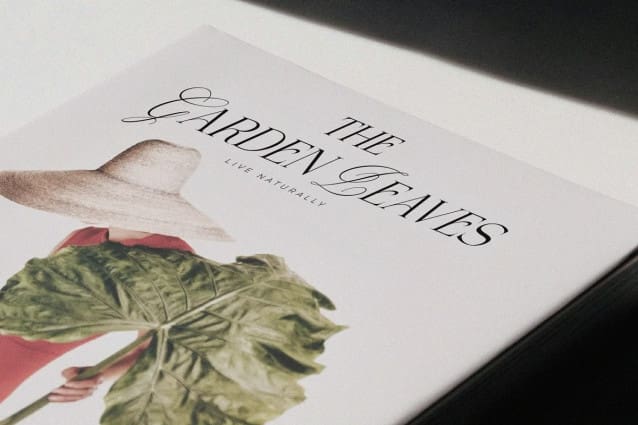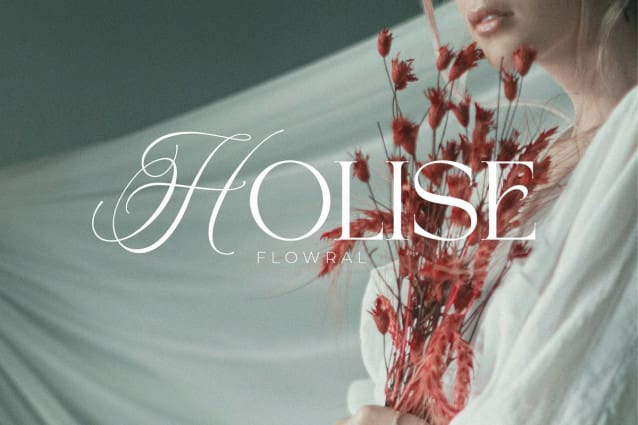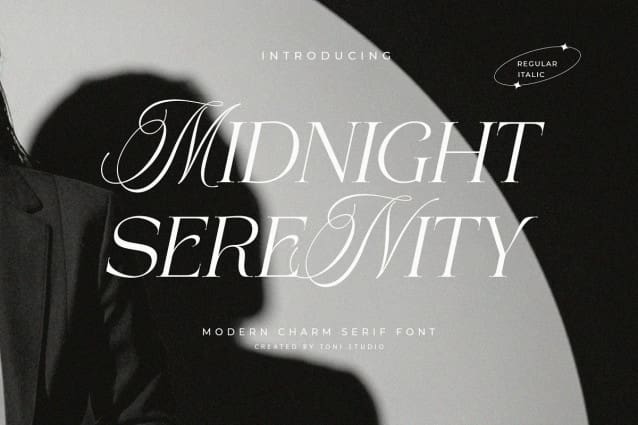
Midnight Serenity Font
Midnight Serenity Font is a very sophisticated font with a combination of two beautiful and inspiring styles of classic calligraphy and modern serif that come together, which comes in 2 regular & italic versions.
MIDNIGHT SERENITY was created primarily for titles, and other short texts and is perfect for advertising, vintage mood boards, branding, logotypes, packaging, titles, editorial designs, modern logos, websites, social media quotes, wedding branding, modern and vintage designs .